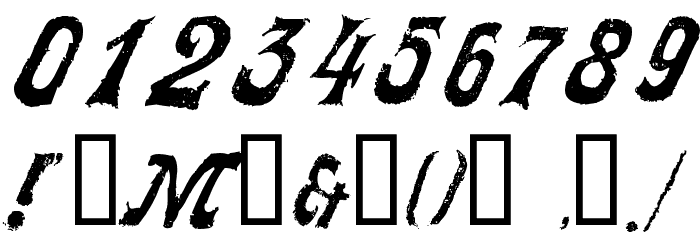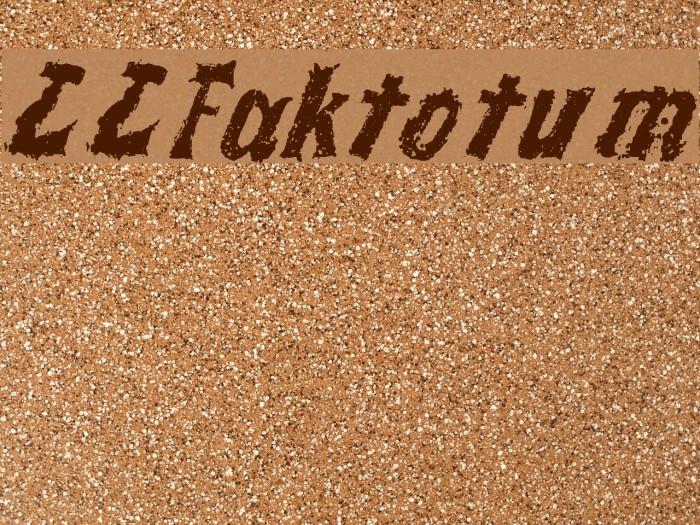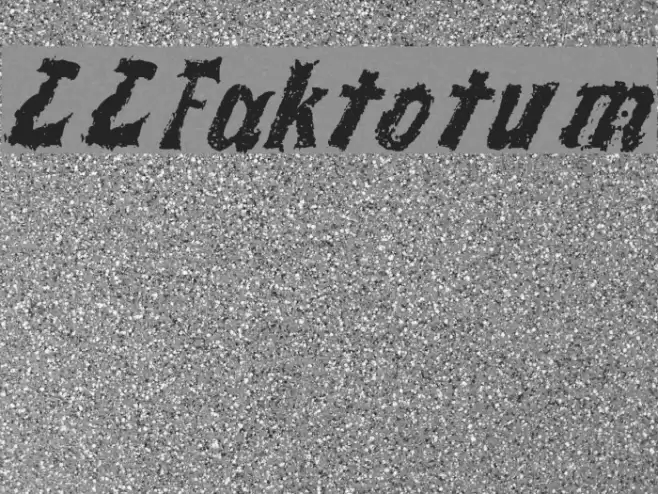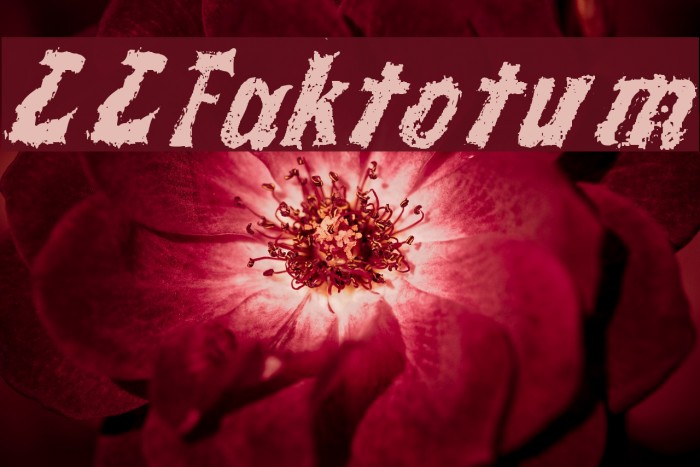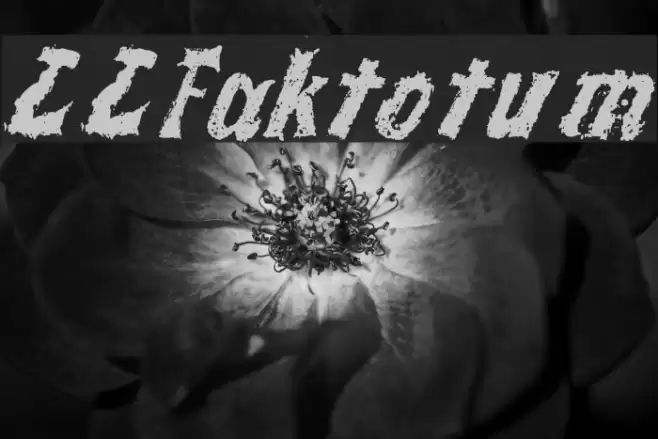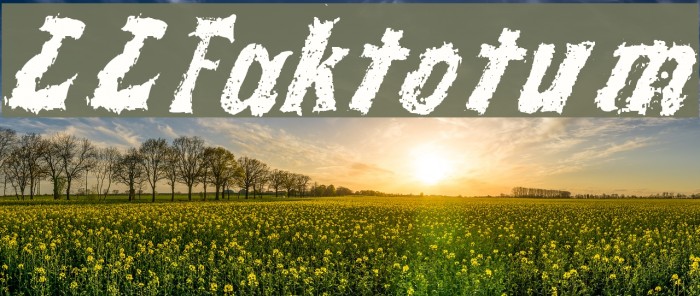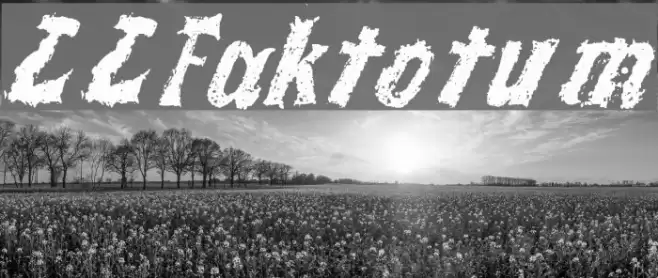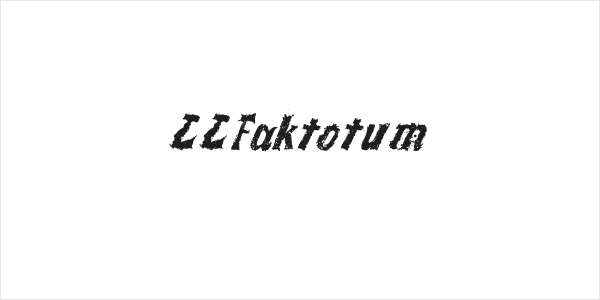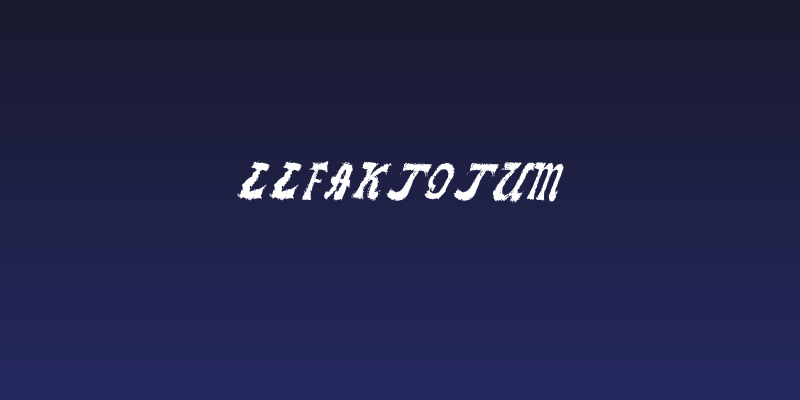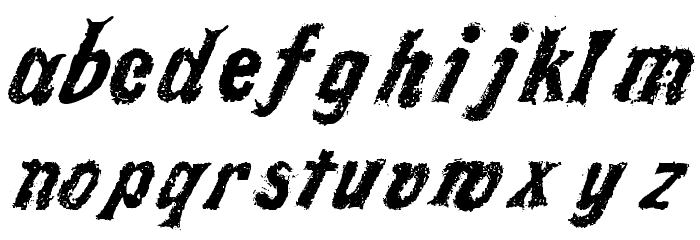
LLFaktotum Font
LLFaktotum Description
This font features a bold and dynamic style with a distressed, textured appearance that gives it a rugged, vintage feel. The characters are italicized, adding a sense of movement and energy. The uppercase and lowercase letters maintain a consistent style, with thick strokes and a high contrast between thick and thin lines. The numbers and special characters follow the same design, ensuring uniformity across all glyphs. The overall look is both eye-catching and distinctive, making it suitable for projects that require a strong visual impact.
| Proposed Projects | Ideal for posters, album covers, branding, and any design requiring a bold, vintage aesthetic. |